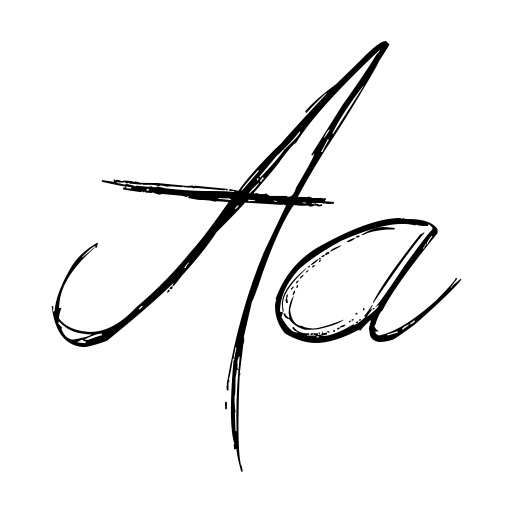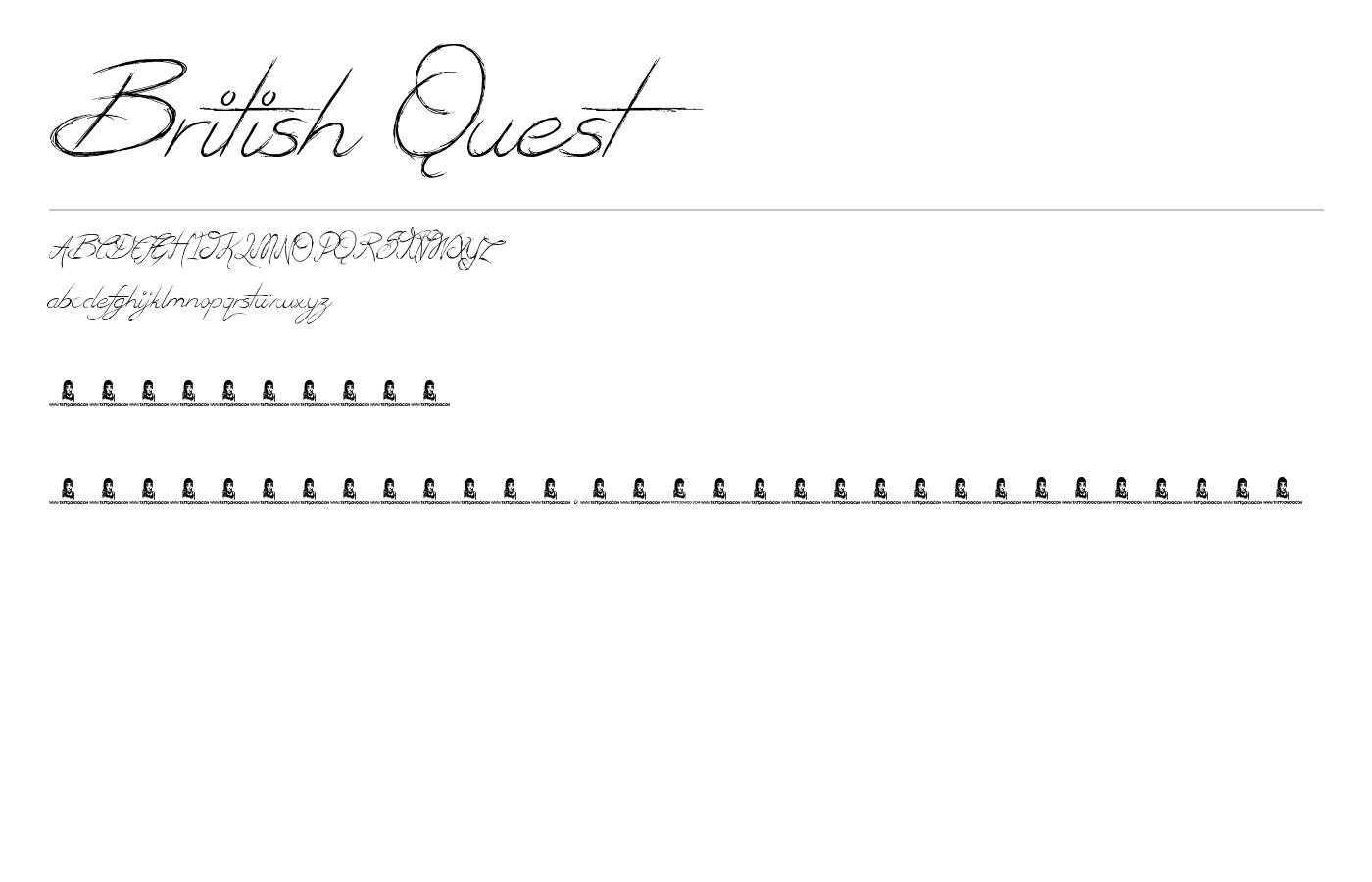
British Quest is a delicate, elegant script font that mimics natural handwriting with its thin, flowing strokes and slight roughness, giving it a charming, vintage feel. Its narrow width and high contrast create a refined and sophisticated look, making it ideal for invitations, branding, and editorial projects that seek a personal yet artistic touch. This font works beautifully where a sense of creativity and elegance is desired, adding a graceful, handcrafted vibe to any design.
British Quest Font
About British Quest Font